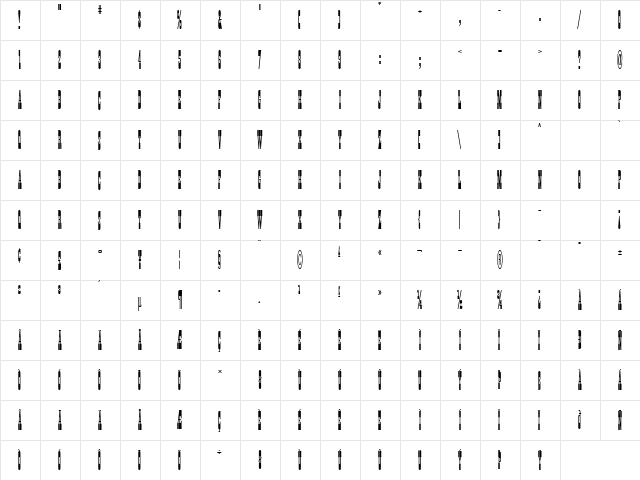
Wainwright ICG Regular
Design Context for Wainwright ICG Typeface
Wainwright ICG is a composed and adaptable typeface that performs quietly and consistently across a wide range of design contexts.